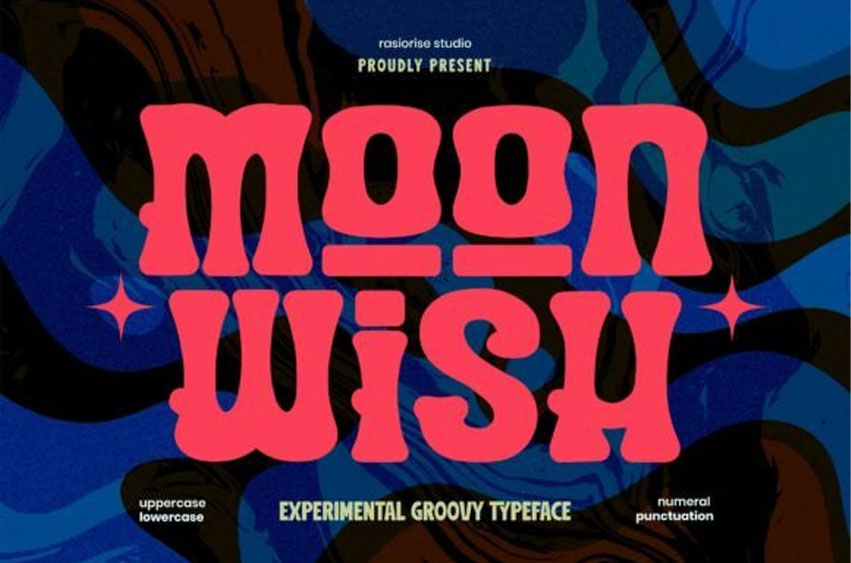
Moonwish Font
Moonwish Font has been released for those seeking a groovy, cartoon-style font – a bold and funky psychedelic font inspired by the free-spirited energy of the 1960s and 1970s. Moonwish brings retro soul to modern design. wavy letterforms, and trippy characters, this font is made for standout headlines.
Unleash your great creativity with Moonwish Font, perfect for use in any project with easy-to-read characters, a playful, Spiritual, and bold font for your project.